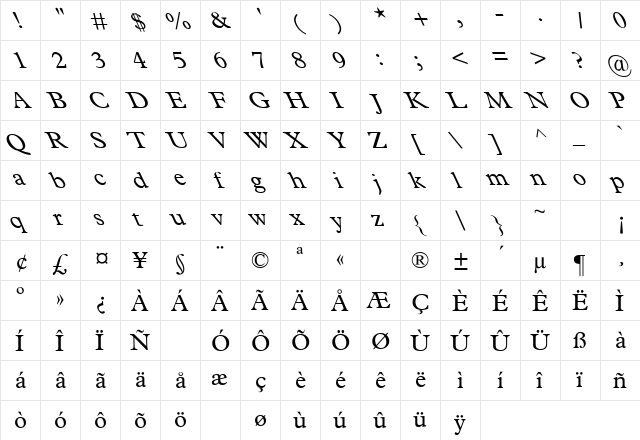
MPlantin Lefty Regular
Design Context for MPlantin Lefty Typeface
MPlantin Lefty offers clean, dependable letterforms without strong stylistic allegiance, making it a practical choice for designers who need flexibility.
Pro Tip: Use MPlantin Lefty in both headline and body roles to test its range before committing to a single application.